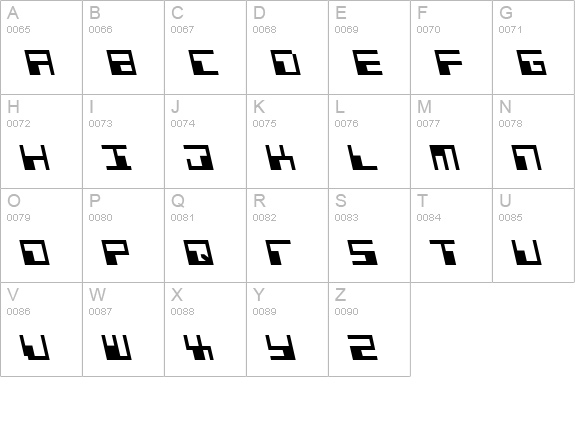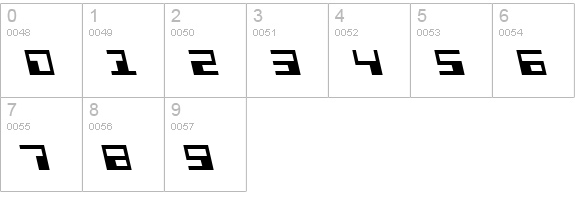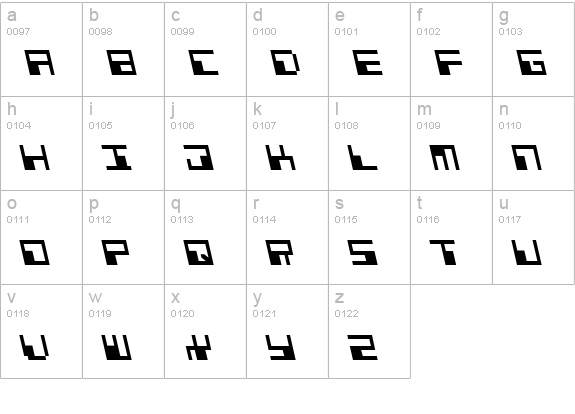
Phaser Bank Leftalic font is a modern and stylish typeface with a sleek and futuristic design. Its unique italic style adds a touch of sophistication to any project, making it perfect for titles, headings, and other creative designs. The font features clean lines and sharp angles, giving it a contemporary feel that is both eye-catching and professional. What makes Phaser Bank Leftalic font even more appealing is that it is available for free download at FontsMarket.com. This means you can easily access this high-quality typeface without any cost, making it a fantastic choice for designers, artists, and anyone looking to elevate their work with a sleek and modern font. Don't miss out on this opportunity to enhance your projects with the effortlessly cool Phaser Bank Leftalic font - download it for free today at FontsMarket.com!